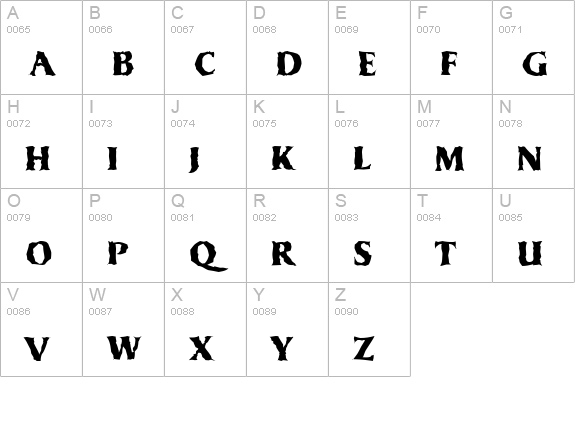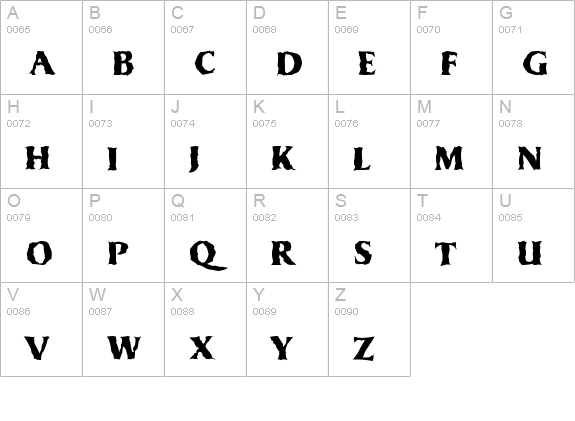
SydneyRandom-Bold is a strong, high-contrast variant in the SydneyRandom typeface family \xE2\x80\x94 well suited to headlines, attention-grabbing titles, and strong calls-to-action.
SydneyRandom-Bold is a stylish and modern display font that exudes confidence and sophistication. With its bold and striking design, this font is perfect for making a statement in any project. The unique mix of sharp angles and smooth curves gives SydneyRandom-Bold a distinct personality that sets it apart from other fonts. What's even better is that SydneyRandom-Bold is available for free download at FontsMarket.com. This means you can add this eye-catching font to your collection without any cost. Whether you're working on a branding project, poster design, or any other creative endeavor, SydneyRandom-Bold is sure to elevate your work and leave a lasting impression. Download it today and unleash the power of this stunning font in your designs.